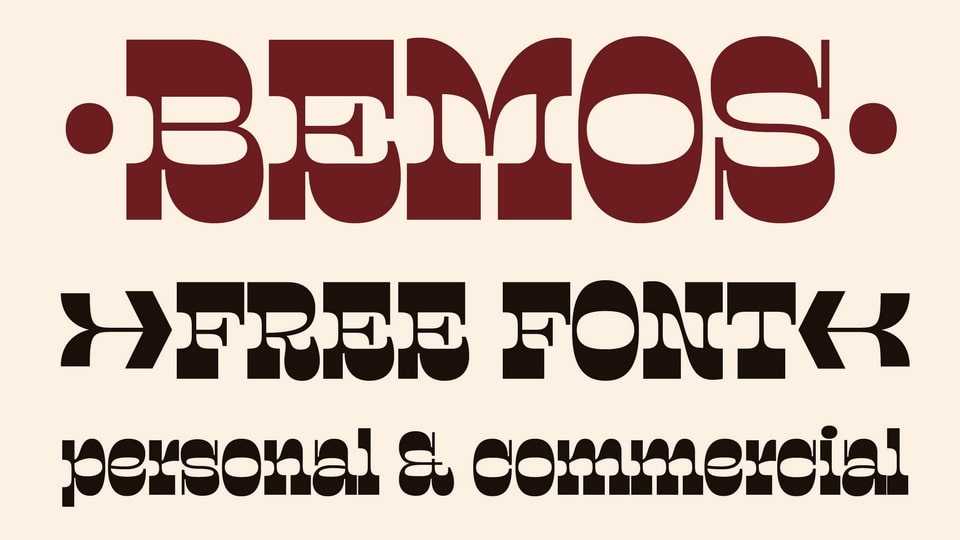
Download Bemos font, a reversed contrast typeface that is a tribute to cowboy culture. It is a modern look on western – like typography, it balances between decorative forms and simplicity.